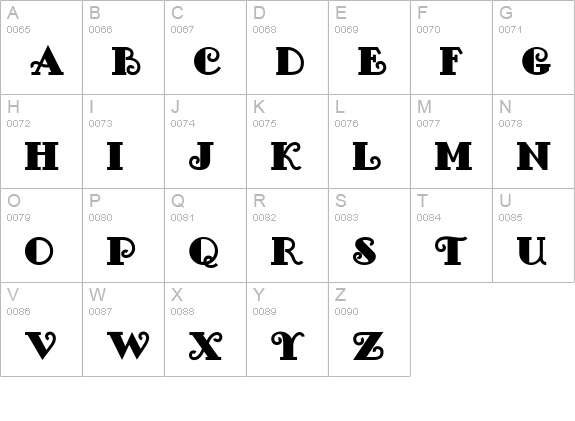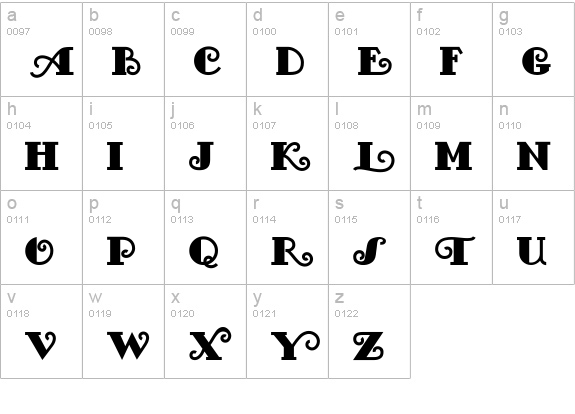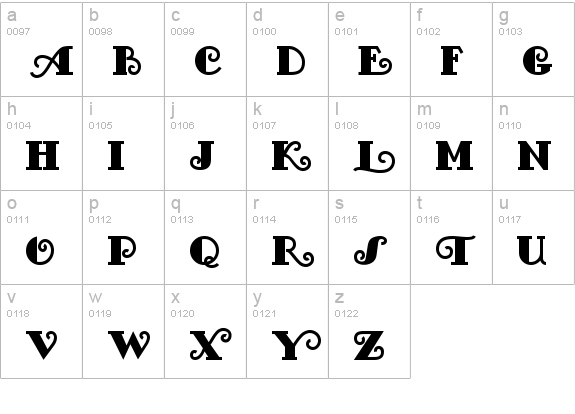
FancyPants Font Details
Introducing FancyPants font - a sophisticated and elegant typeface that exudes style and charm. This exquisite font features intricate details and ornate flourishes that make it perfect for adding a touch of luxury to any design project. With its graceful curves and classic aesthetic, FancyPants font is sure to make a lasting impression. The best part? FancyPants font is available for free download at FontsMarket.com. Now you can elevate your creations with this stunning font without breaking the bank. Whether you're designing invitations, logos, or social media graphics, FancyPants font is the perfect choice for bringing a touch of opulence to your work. Download it today and let your creativity shine with this beautiful and versatile typeface.